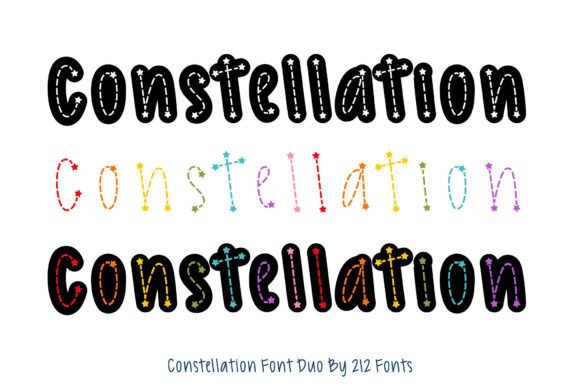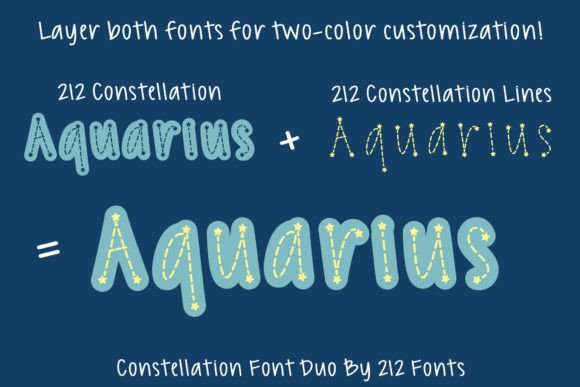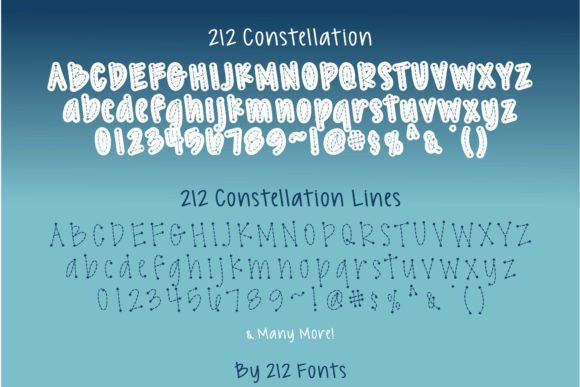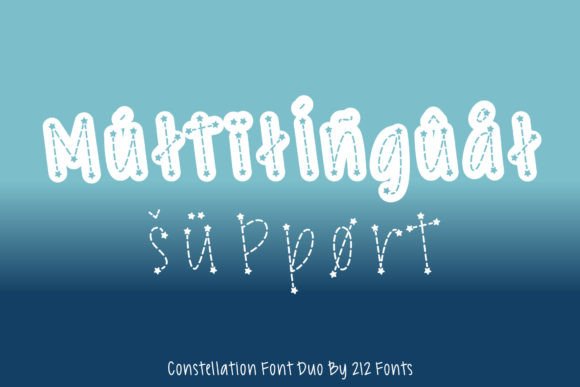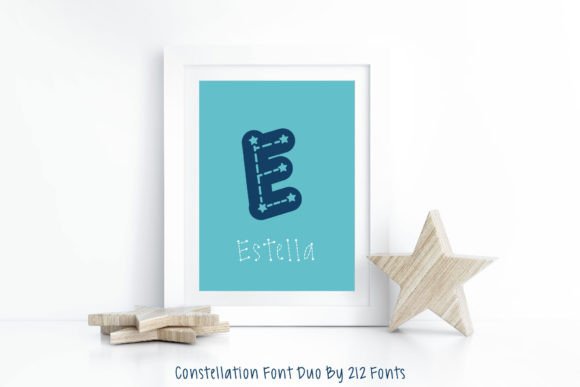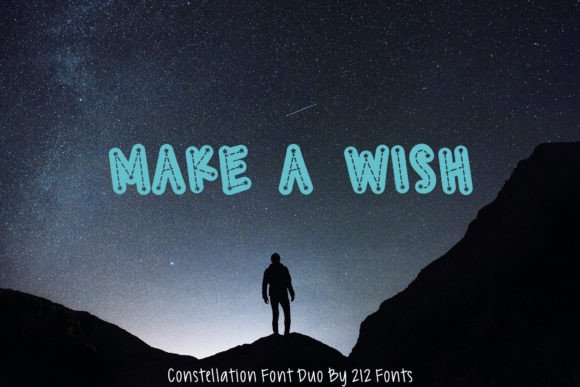
Exploring the Wonders of the Constellation Font
Are you a designer, crafty individual, or simply someone who appreciates the beauty of the night sky? Look no further than the Constellation Font, a unique and incredibly fun display font that is sure to add a touch of celestial magic to your projects. In this article, we’ll take a closer look at what makes this font so special and why it’s perfect for all your astronomy-related endeavors.
What is the Constellation Font?
The Constellation Font is a one-of-a-kind display font that features a set of characters that resemble constellations in the night sky. With its whimsical and dreamy design, this font is sure to capture the imagination of anyone who sees it. Whether you’re working on a project related to astronomy, space, or simply want to add a touch of whimsy to your design, the Constellation Font is the perfect choice.
The Bonus Dingbats Font: A Set of Wonderful Constellations
But that’s not all – the Constellation Font also comes with a bonus dingbats font containing a set of wonderful constellations. This additional font is packed with a variety of celestial designs, from Orion and Cassiopeia to Ursa Major and more. These dingbats can be used to add an extra layer of depth and visual interest to your designs, making them truly out of this world.
Perfect for Celestial and Astronomy-Related Projects
So, what kind of projects can you use the Constellation Font for? The possibilities are endless! Here are a few ideas to get you started:
- Astronomy-related designs, such as posters, flyers, and brochures
- Celestial-themed crafts, such as handmade cards, gift tags, and scrapbooking pages
- Web designs, such as astronomy blogs, space-themed websites, and online magazines
- Social media graphics, such as Facebook posts, Instagram stories, and Twitter headers
Why Choose the Constellation Font?
With so many fonts available, why choose the Constellation Font? Here are just a few reasons why this font stands out from the rest:
- Unique Design: The Constellation Font features a truly unique design that is sure to capture the attention of your audience.
- Versatility: This font can be used for a wide range of projects, from astronomy-related designs to celestial-themed crafts.
- Bonus Dingbats Font: The included bonus dingbats font adds an extra layer of value to this font package.
Tips for Using the Constellation Font
Here are a few tips for getting the most out of the Constellation Font:
- Experiment with Different Sizes: Try using the Constellation Font in different sizes to create visual interest and hierarchy in your designs.
- Pair with Other Fonts: Experiment with pairing the Constellation Font with other fonts to create a unique and eye-catching combination.
- Use the Dingbats Font Creatively: Don’t be afraid to get creative with the bonus dingbats font – use it to add a touch of whimsy to your designs or to create a cohesive look.
In conclusion, the Constellation Font is a unique and incredibly fun display font that is perfect for all your celestial and astronomy-related projects. With its whimsical design and bonus dingbats font, this font package is a must-have for designers, crafty individuals, and anyone who appreciates the beauty of the night sky. So why wait? Download the Constellation Font today and start adding a touch of celestial magic to your designs!